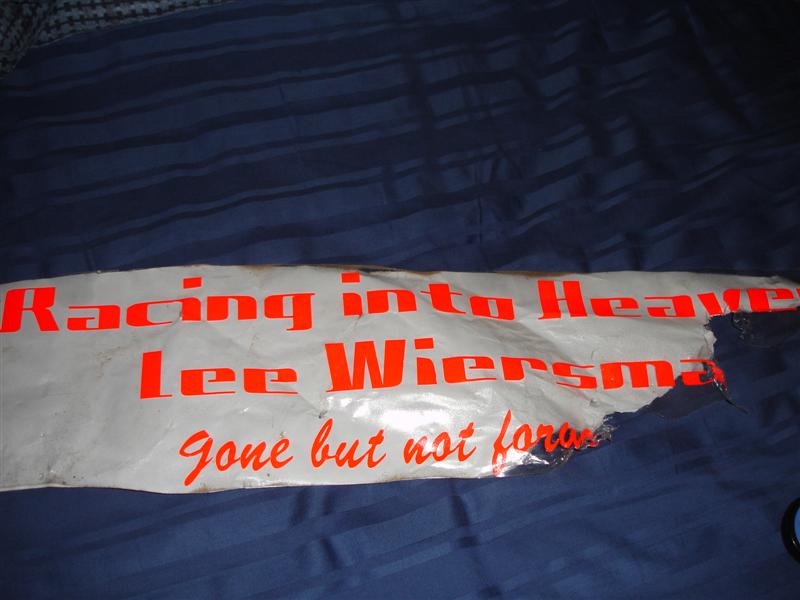
Font ID Please
Need a little help with this one guys. Someone else made the decal and a dog got a hold of it...opps.
The script is a bad knockoff of brush script. Something tells me that the main copy may also be a freebie "junk" font. Try a search at 1001freefonts. Sorry bro, I gotta go to bed, to tired to even think anymore! LOL****** Try talkin them into Serpentine or Crille. It'll look better.